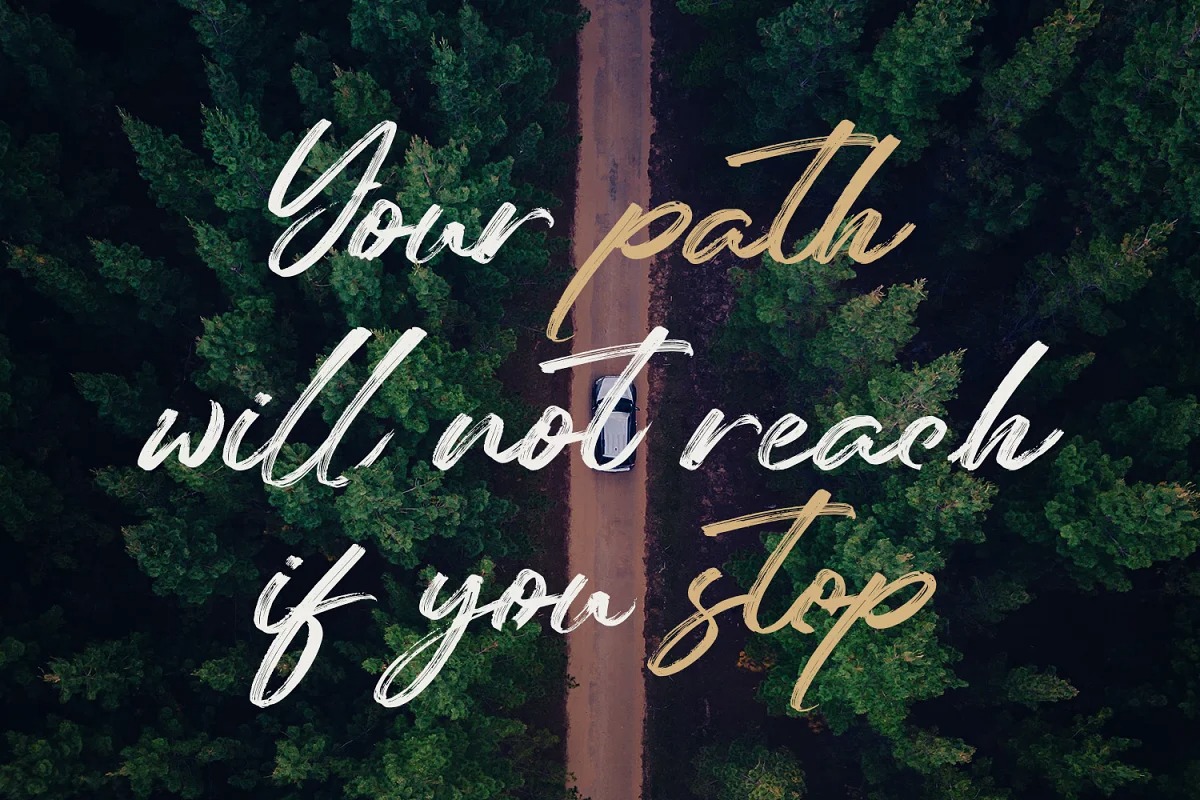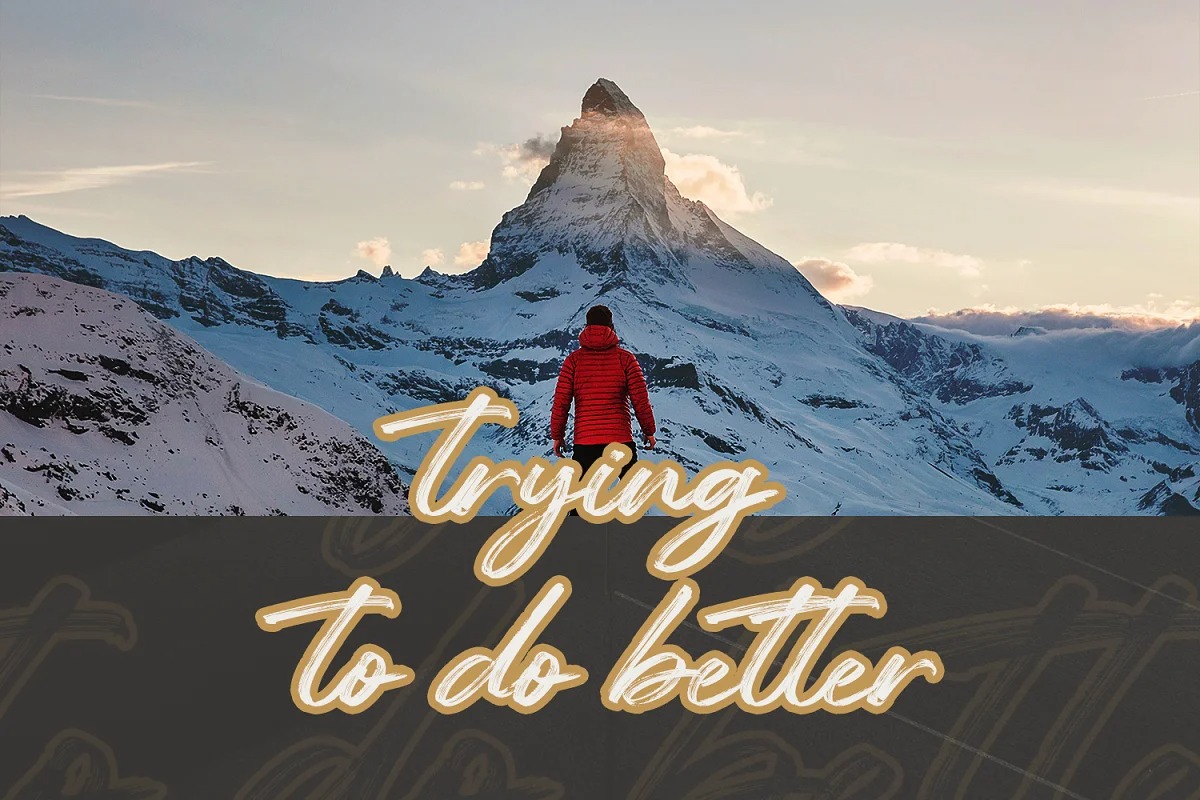
Reinkies Brush Font
It’s a modern script typeface with texture brushed ink style. Letters are made with brushes on paper. Then scanned and carefully drawn into vector format. That is why Reinkies has charming, authentic and relaxed characteristic more natural look to your text with a more natural look to your text. You can activate Ligature OpenType panel, ReinkiesPerfect for designs,branding projects, Logo design, Quotes product packaging.